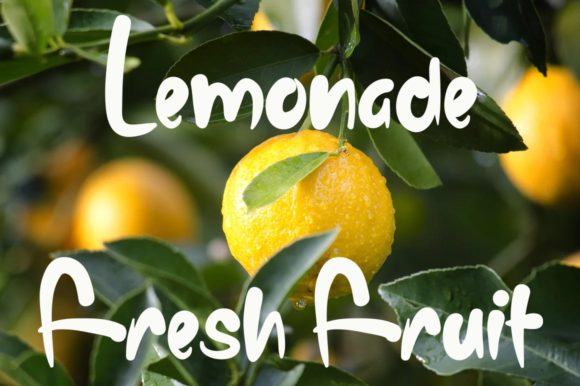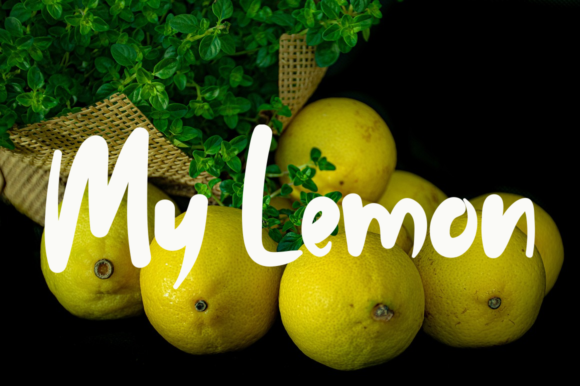
Sugar Lemonade Font
db-ku.com - Script & Handwritten -- Sugar Lemonade is a cute and friendly paint brushed script font. Whimsical and a bit quirky, this font will brighten up each of your designs. Add it confidently to your projects, and you will love the results.